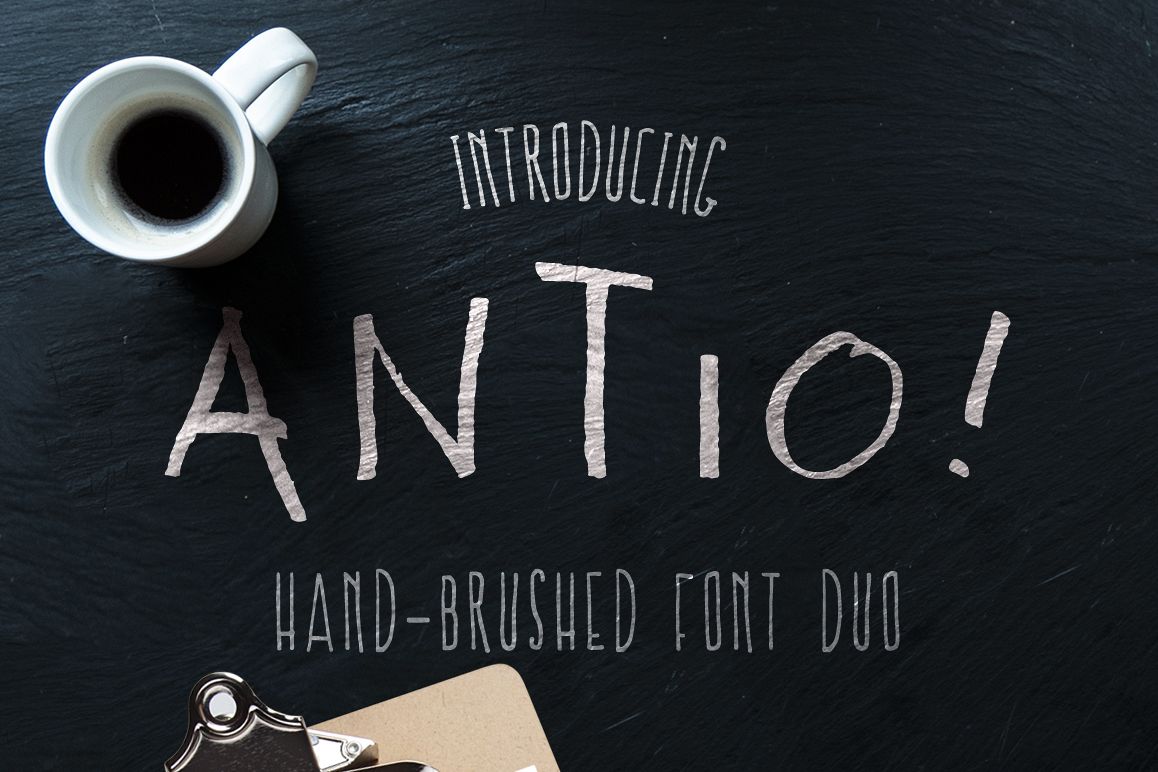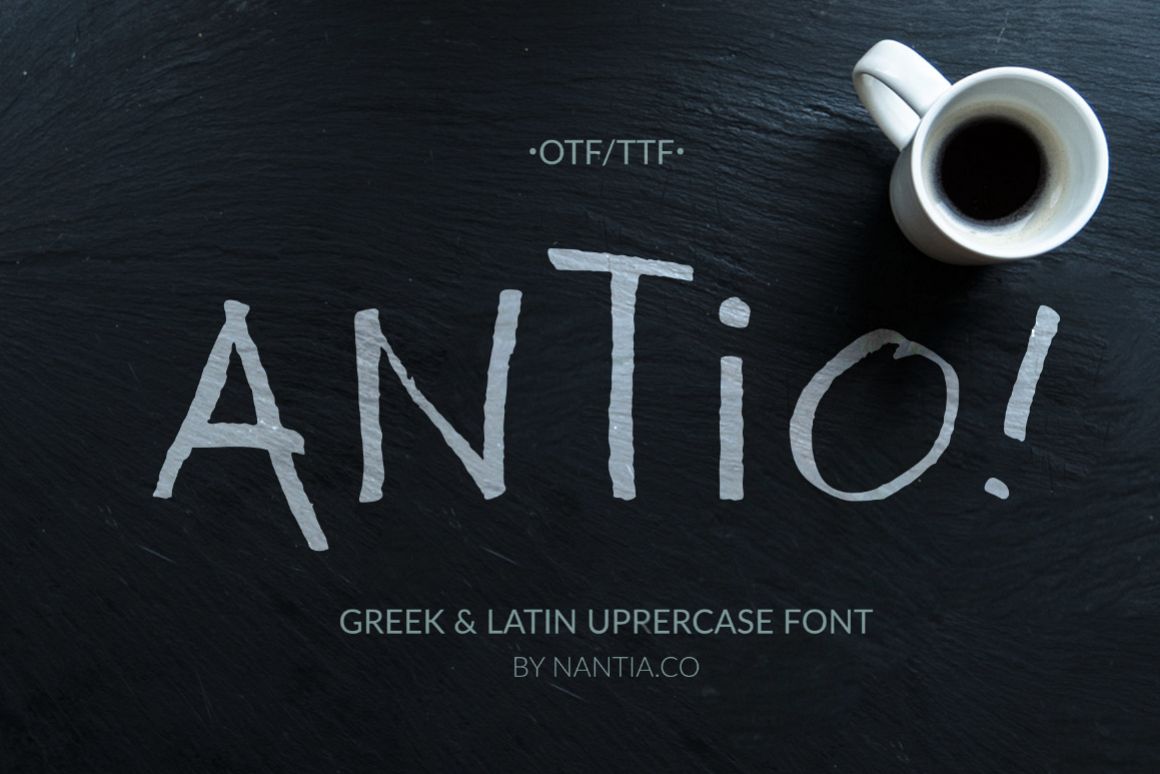
ANTIO! Prokopis | Font Duo
NF-Prokopis-Regular
NF-ANTIO-Regular
ANTIO! Prokopis Duo Font
ANTIO! Prokopis Duo Font is a cute duo font. You can use these the two typefaces separately or you can pair them up for a trendy look. Antio! Font is an all Caps marker font and Prokopis font is a handwritten all Caps font. Also, ANTIO! Prokopis Duo Font it’s a multilingual lettering duo font with Greek (of course), Latin characters and diacritics.
The style of this typeface duo is perfect for your modern graphic design needs. Food packaging, restaurant menus, coffee and bar menus and food industry branding are some examples of the numeral applications of this typeface duo. The shabby-chic style of the duo, is perfect for your graphic design needs like social media quotes, blog headers, posters, art projects and why not packaging, and logotypes.
Antio font
• Basic Latin uppercase character set
• Greek uppercase character set
Prokopis font
• Basic Latin uppercase character set
• Greek uppercase character set